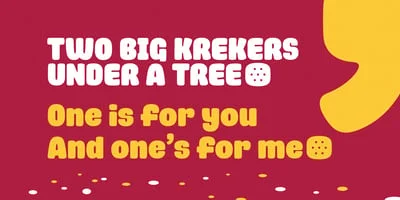
Kreker Font
Kreker Font is perfect for snack food packaging, casual restaurant branding, fun children's products, playful bakery signage, quirky café menus, entertaining food blogs, snack brand marketing, and lighthearted culinary designs.
Kreker Font is exciting because it captures the crispy fun and playful energy of snack culture through its crunchy character design that embodies the satisfying texture of crispy treats and the delightful enjoyment of casual snacking experiences. Its playful styling and snack appeal make it the perfect choice for brands that want to communicate fun, satisfaction, and the irresistible pleasure of delicious snack moments.
Kreker Font family includes multiple snack-inspired variations: Kreker Regular, Kreker Bold, Kreker Light, Kreker Crispy, Kreker Crunchy, and Kreker Fun, along with food-themed decorative elements and snack symbols, providing designers with comprehensive tools for creating authentic snack food and casual dining-themed brand experiences.
When exploring food typography solutions, Kreker Font emerges as the ultimate choice for designers working on snack food and casual dining projects that require genuine playful sophistication and appetizing appeal. This delightful typeface embodies the essence of snack enjoyment while offering the versatility needed for modern food marketing and casual dining communications. The font's crispy character and food resonance create immediate connections with audiences who appreciate fun snacking and casual food experiences.
Food brand professionals consistently turn to Kreker Font for projects requiring authentic snack sophistication and powerful appetizing appeal. Its carefully crafted letterforms feature snack-inspired influences that work exceptionally well in both large-scale food retail displays and intimate snack packaging applications. The font's ability to convey fun and snack authenticity while maintaining strong brand recognition makes it invaluable for comprehensive identity systems in the snack food, casual dining, and fun food experience sectors.
Whether you're developing snack brand identities, creating casual restaurant marketing materials, or designing fun food promotions, Kreker Font delivers the authentic snack character and playful appeal that resonates with audiences who enjoy casual snacking and fun food experiences. Its snack significance and crispy design ensure your projects capture the satisfying crunch of delicious treats while maintaining contemporary professional standards that attract modern snack enthusiasts and casual dining lovers.